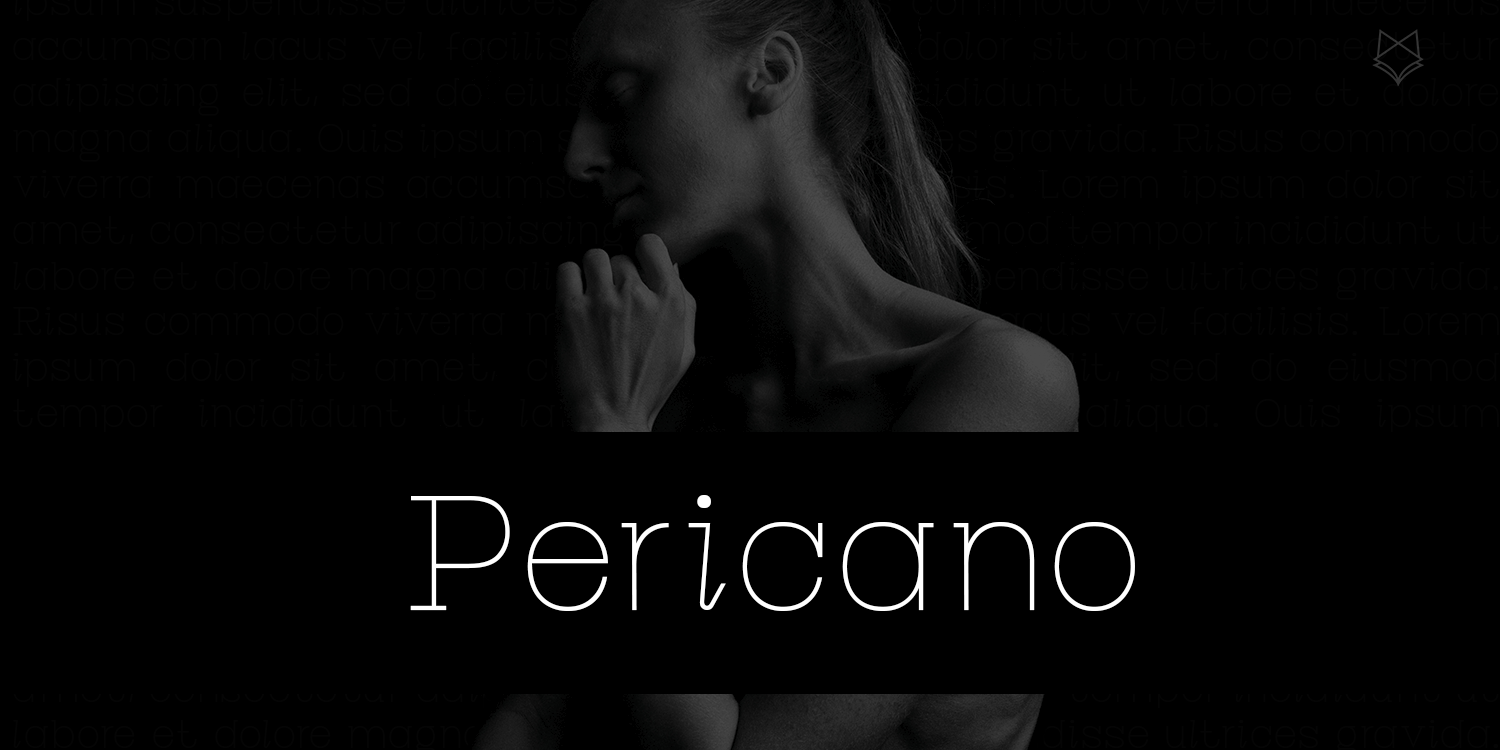
Pericano Display Font is perfect for bold headline designs, striking poster layouts, commanding advertising campaigns, powerful logo presentations, dramatic title sequences, impactful packaging displays, attention-grabbing signage, and dominant brand statements. This commanding typeface excels in applications requiring maximum visual impact and display excellence that demands immediate attention and creates unforgettable brand presence across all media formats.
What makes Pericano Display Font exciting is its masterful command of visual hierarchy that instantly establishes dominance through powerful letterforms designed specifically for large-scale display applications. The font features robust character construction with dramatic presence and optimal display proportions that ensure maximum readability and impact at large sizes while maintaining distinctive personality for memorable brand recognition.
The Pericano Display Font family includes multiple display weights and dramatic styling variations, offering designers comprehensive tools for creating commanding visual hierarchies. The family provides consistent display excellence with varying impact levels for versatile headline communications and powerful branding projects requiring genuine display authority and commanding visual presence.
Pericano Display Font Free Download offers designers access to premium display typography that delivers uncompromising visual impact for headline and large-format applications. Whether you're creating billboard advertising, poster campaigns, dramatic packaging designs, or commanding brand presentations, this font provides the display power needed for maximum audience engagement and unforgettable visual communication.
The powerfully engineered letterforms of Pericano Display Font ensure optimal performance at large sizes while maximizing visual drama and display impact, making it ideal for outdoor advertising, large-format signage, and commanding digital displays. This specialized typeface combines display excellence with contemporary technical standards for outstanding performance in professional environments requiring maximum visual impact and commanding headline presence.